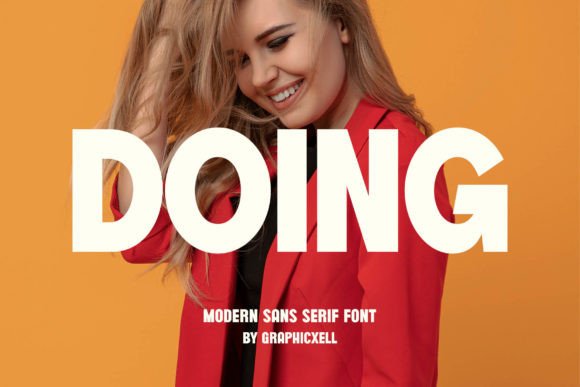
Doing Font
inspired by the famous minimalist logo perfect for the purposes of designing templates, brochures, videos, advertising branding, logos, invitation, layout design, elegant crafting, beauty design and other